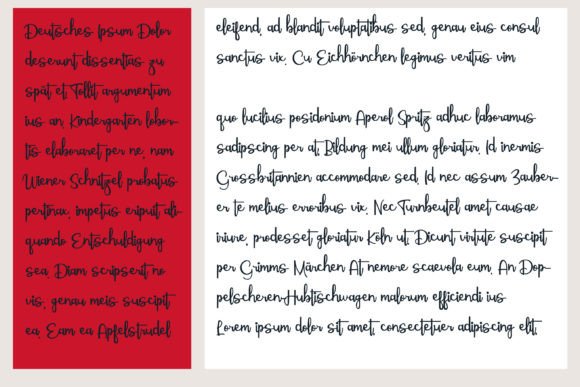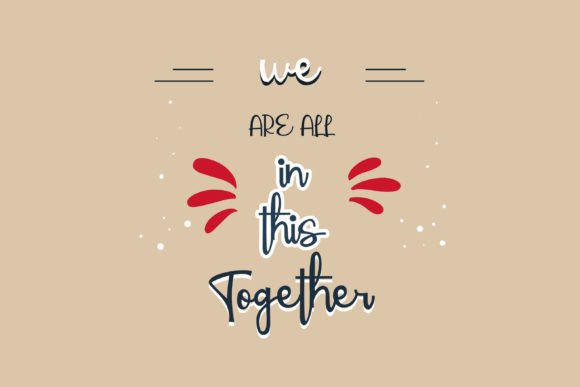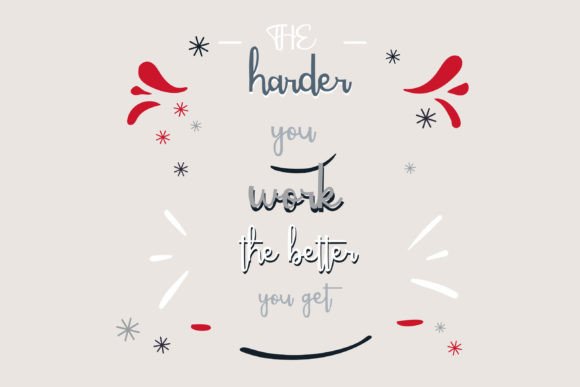
Introduction to Fructose Font
There’s something magical about creating a new design project, and it all starts with a spark of inspiration. Maybe you’re brainstorming ideas for a wedding invitation, or perhaps you’re crafting a heartfelt thank you note. Whatever the project, you’re on the hunt for the perfect font to bring it to life. Enter Fructose Font, a stunning hand-written cursive script that’s sure to elevate your creative project.
With its unique print-like uppercase and bouncy baseline, Fructose Font is a game-changer for designers. Its versatility shines through in its ability to complement a wide range of designs, from quotes and greeting cards to logos and business cards. Whether you’re working on a high-quality design or simply want to add a personal touch, Fructose Font is a valuable resource that’s sure to please.
Key Features of Fructose Font
- High-quality design for various creative projects, including graphic design, digital art, and print media.
- Features a transparent background, making it easy to integrate with any design or image.
- Designed with a unique, modern aesthetic that is perfect for adding a touch of elegance to any creative project.
- Available in a range of sizes, with high-resolution designs (up to 300 DPI) for crisp, clear display.
- Perfect for designers and artists looking for a high-quality, free design resource to elevate their creative projects.
Honest Review: Fructose Font
As a designer, I’m always on the lookout for high-quality design resources that can elevate my creative project. Recently, I stumbled upon the Fructose Font, and I must say it’s been a game-changer.
- What works well: ✨ The Fructose Font is incredibly versatile, with a clean and modern design that can be used for a wide range of applications, from branding to typography.
- ✨ The font is also highly customizable, with a transparent background that allows for seamless integration with any design element.
While the Fructose Font is an excellent addition to any designer’s toolkit, there are a few limitations to keep in mind:
- ⚠️ The font may not be suitable for very small or very large text sizes, as it can become difficult to read.
- ⚠️ Additionally, some users may find the font’s modern design to be too minimalist for their taste.
Overall, I’m thoroughly impressed with the Fructose Font. Its high quality, versatility, and free download make it an essential design resource for any creative project. With a little bit of finesse, the Fructose Font can elevate your design to the next level.
The Fructose Font is a high-quality, unique design resource perfect for creative projects. With its transparent background and elegant style, it adds a touch of sophistication to any design. This guide will walk you through the process of using the Fructose Font in various design platforms.
Tips for Getting the Most Out of Fructose Font
Experiment with different font sizes and styles to create a unique look. Use the Fructose Font in combination with other design elements to create a visually appealing design. Don’t be afraid to try new things and push the boundaries of what’s possible with this font.
The Fructose Font is perfect for a variety of creative projects, including branding, marketing materials, and digital designs. It’s also great for use in presentations, reports, and other documents where a touch of elegance is needed.